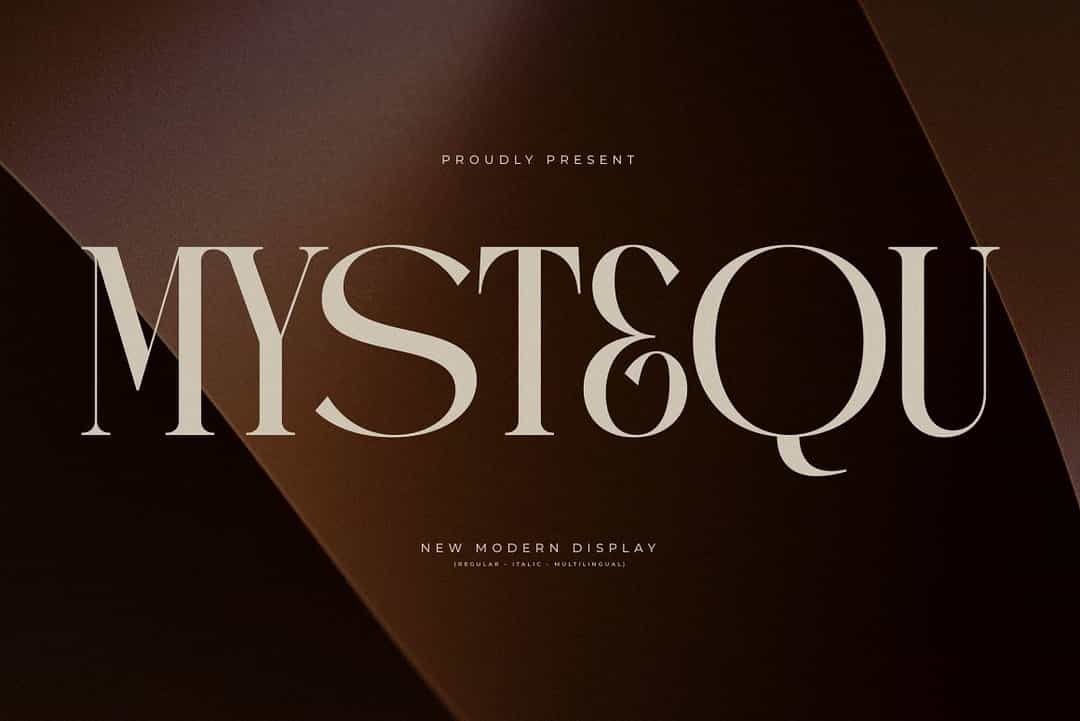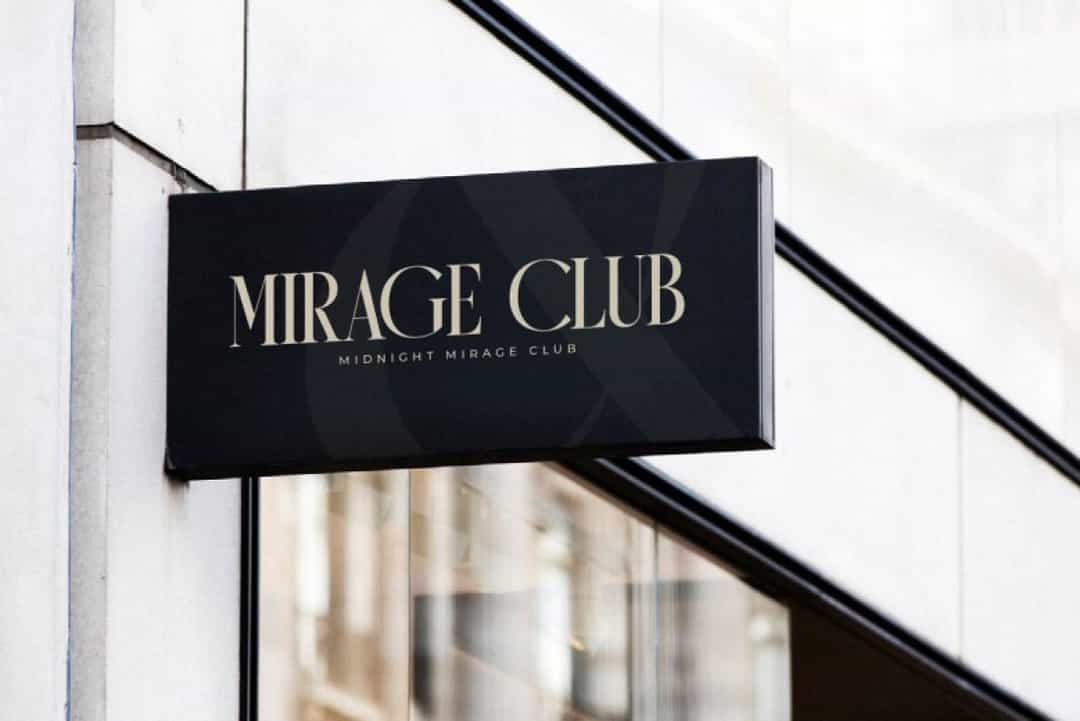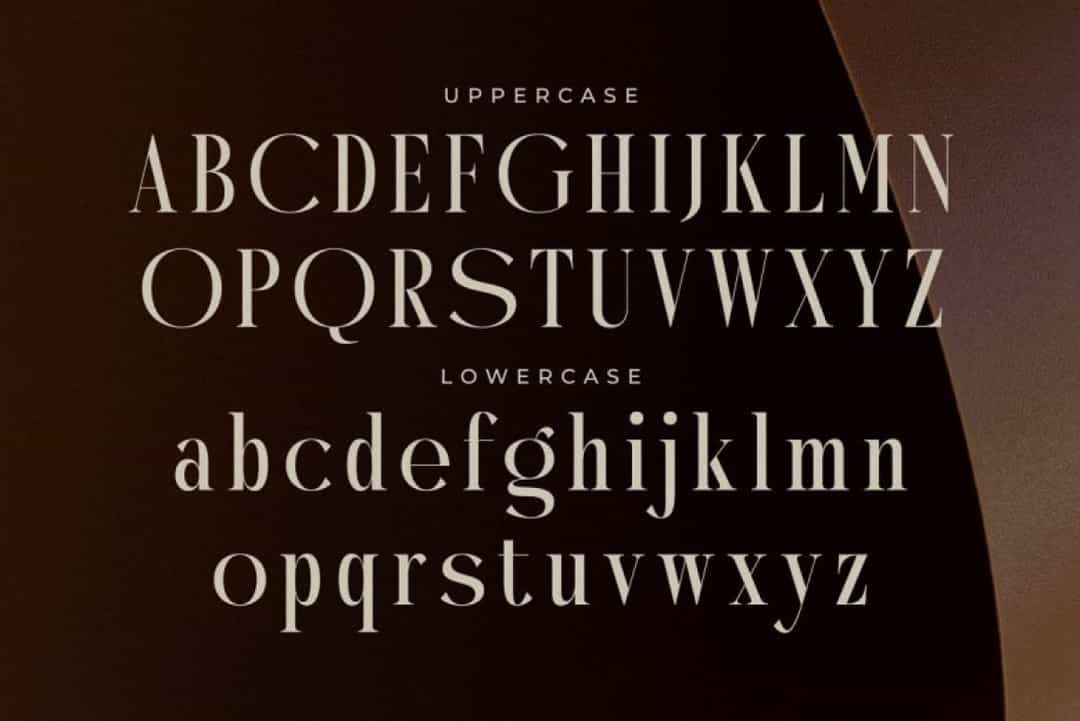
Mystequ is an elegant display serif font designed with its distinctive style and contemporary vibe in mind, ideal for creating classy logos, movie, book name designs, fashion brand clothing lines, magazine letters/quotes as well as many other projects.